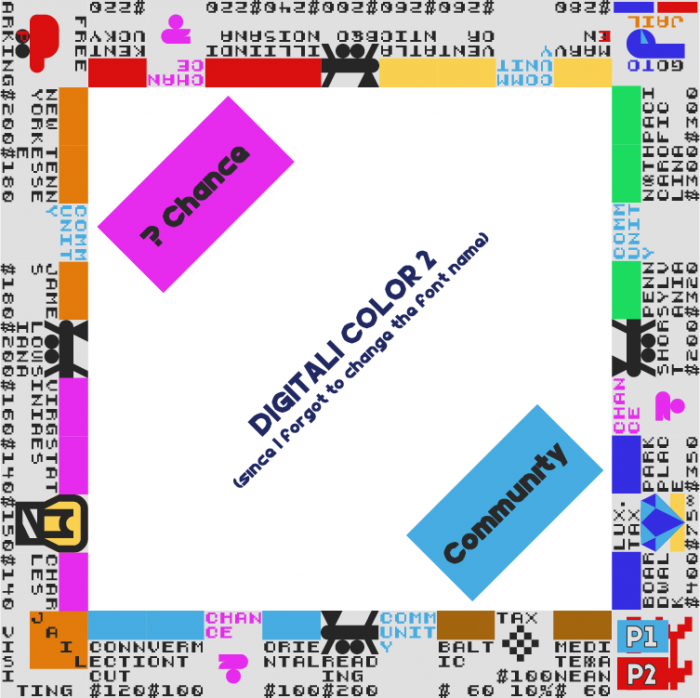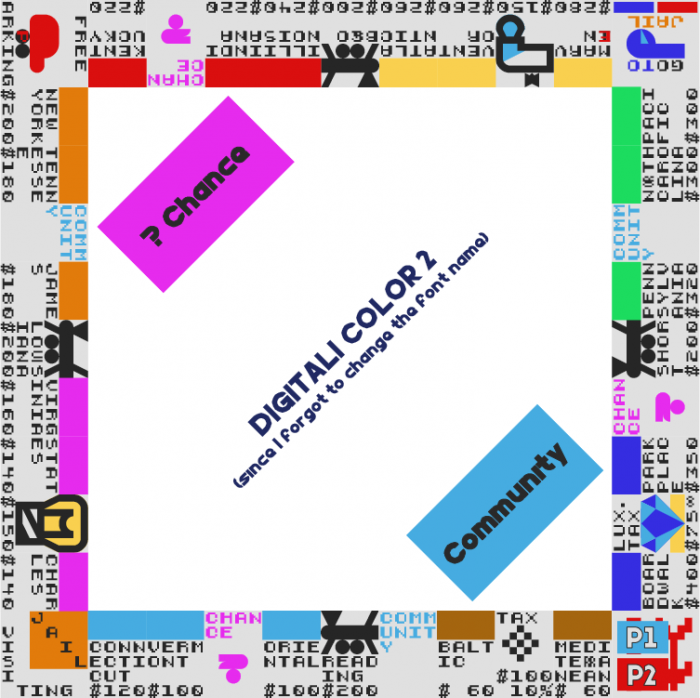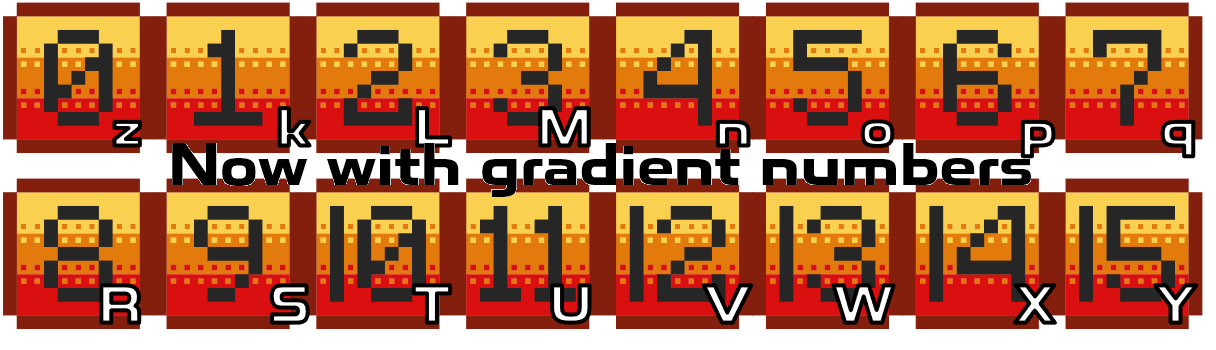
• this is just american monopoly
+changed pennsylvania RR to louisiana to not confuse it for pennsylvania avenue GREEN PROPERTY
+the creator of monopoly, charles darrow, mispelt "marvEn gardens" spelling it "marvIn gardens"
+now with gradient numbers
apparently the anterior sample is wrong: there's a community instead of water works.
the following sample fixs this problem
Could you give us a brief description of your work? I'm not familiar with this board game. A few of the abbreviations need clarification. Does "CONNVERM" mean the great states of Connecticut and Vermont? What are the other fonts included in your demo?
@frodo7 ....monopoly
"ConnVerm" are Connecticut ave & Vermont ave, different spaces in monopoly (the charaters are together idk why)
i used expo'92 for the sample but none other in the font itself
some of the letters may merge into the border